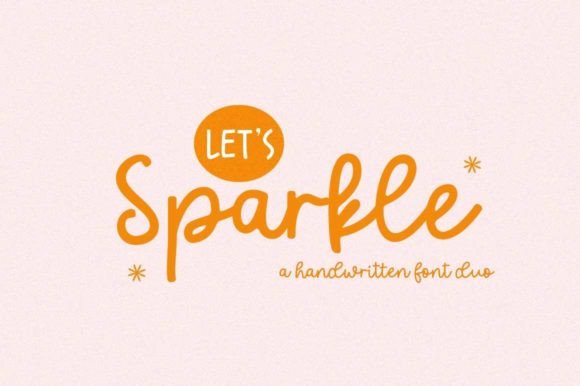
Looking for a new font that is perfect for all your creative needs? Look no further than Let's Sparkle Font! This brand-new handwritten script font is created by luckytype.font, and it's the perfect choice for all your script writing needs.
Let's Sparkle Font is a beautiful and unique script font that is perfect for creating fun and happy designs. Whether you're working on a book cover, wedding invitation, greeting card, logo, poster, or any other project, Let's Sparkle Font will elevate your work to the next level.
This font is versatile and can be used for a wide range of projects, making it an excellent choice for any designer or creative professional. It's a font that is both modern and timeless, and it's sure to make your designs stand out from the crowd.
But Let's Sparkle Font isn't just a beautiful font - it's also incredibly easy to use. With its smooth lines and elegant curves, this font is a joy to work with, and it will make your creative projects a breeze.
So if you're looking for a font that is perfect for script writing, look no further than Let's Sparkle Font. With its unique style, versatility, and ease of use, it's the perfect choice for any designer or creative professional.